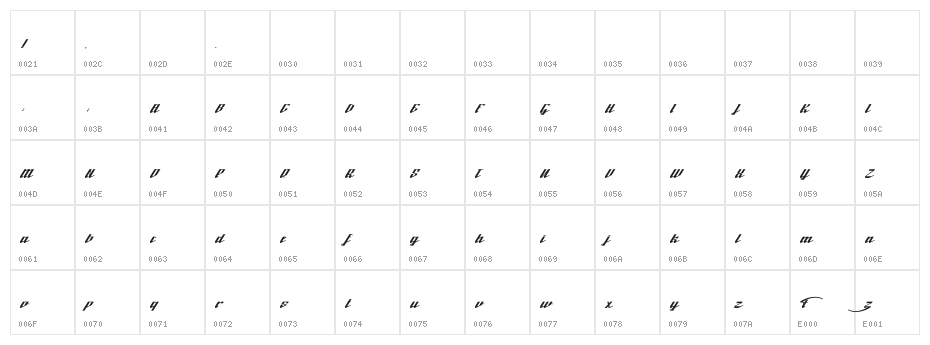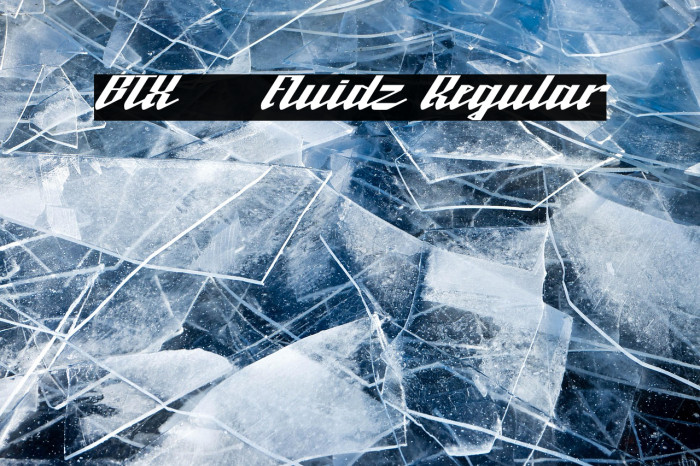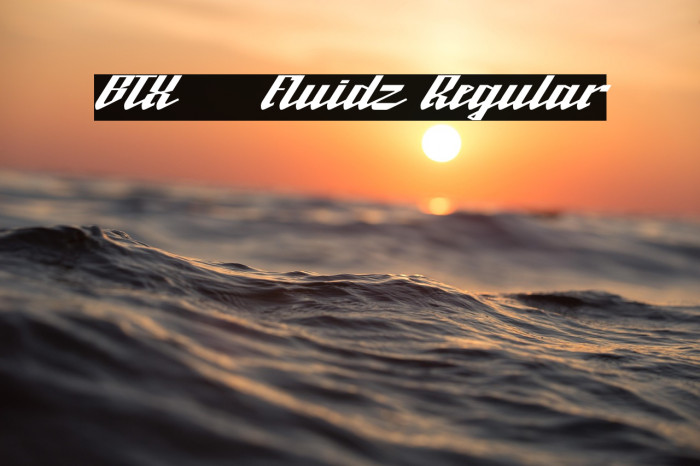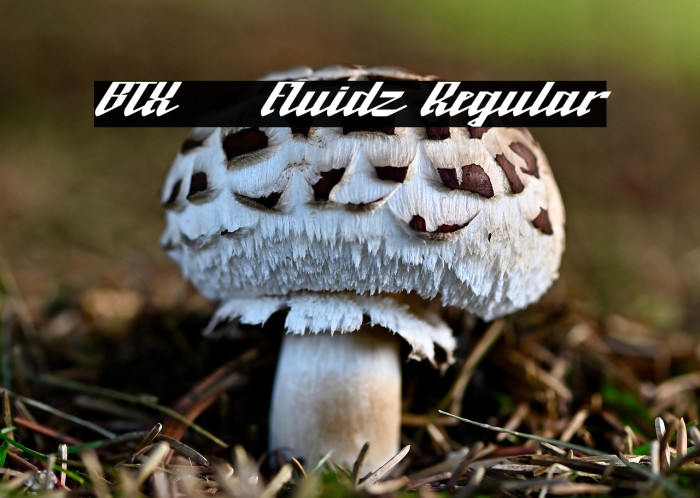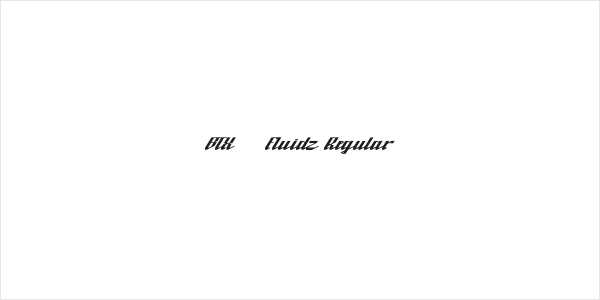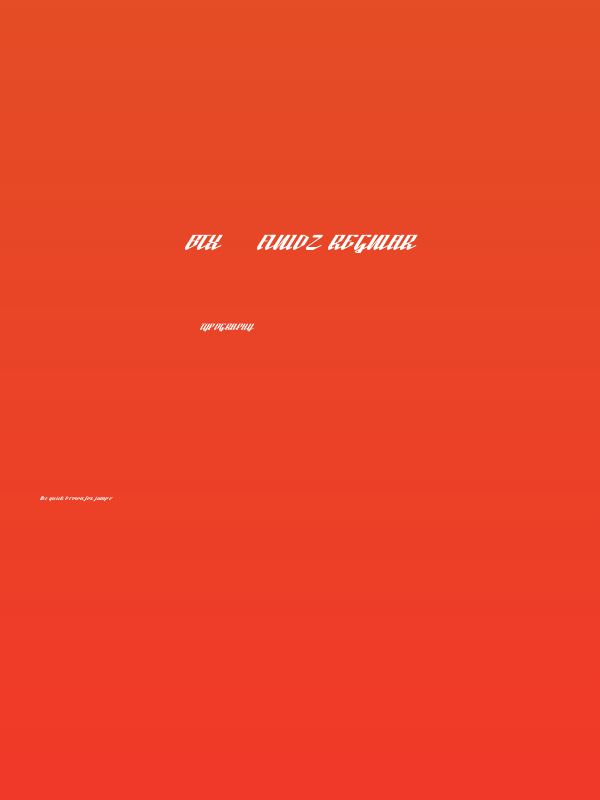
BTX-Fluidz Regular Font
BTX-Fluidz Regular Description
This font features a dynamic and fluid design, characterized by its sharp, angular strokes and a sense of motion. The uppercase and lowercase letters maintain a consistent slant, giving the text a forward-leaning appearance that suggests speed and agility. The characters are tightly spaced, enhancing the compact and cohesive look. The font's bold and striking nature makes it ideal for attention-grabbing headlines or titles. Its unique style blends elements of modern and decorative typography, making it suitable for creative projects that require a distinctive and energetic visual impact.